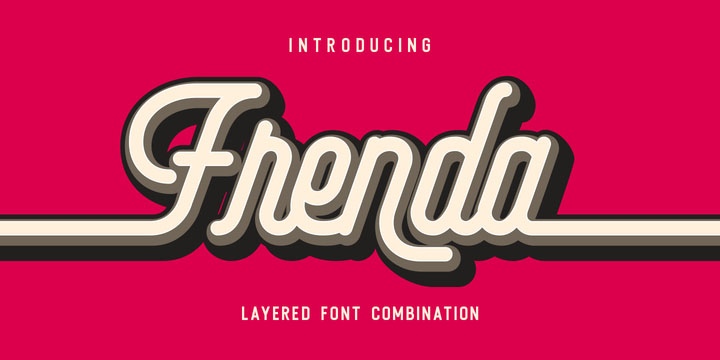
Frenda Font
Frenda Font is perfect for friendly brand identities, approachable corporate communications, community organization materials, children's educational content, welcoming healthcare branding, and warm hospitality marketing. This charming typeface excels in family-oriented businesses, neighborhood cafes, social service organizations, and any application where genuine warmth and human connection create trusting relationships with audiences.
What makes Frenda Font so exciting is its remarkable ability to convey genuine friendliness and approachability through carefully crafted letterforms that feel naturally inviting. The font features soft curves, open counters, and welcoming proportions that create an immediate sense of comfort and accessibility. Its warm personality makes complex information feel approachable while maintaining the professionalism necessary for serious communications.
Frenda Font comes in a welcoming family including Light, Regular, Medium, Bold, and Heavy weights. Each style features complete uppercase and lowercase character sets, friendly symbols, approachable numerals, and warm punctuation marks. The font family also includes rounded alternates, connecting ligatures, and inclusive character variations that provide designers with comprehensive tools for creating truly accessible communications.
This delightful typeface transforms business communications into genuine expressions of care and community connection. Frenda Font Free Download empowers organizations and designers to create materials that build trust and foster positive relationships through typography that genuinely cares about human connection. Whether you're developing brands for community services, creating educational materials, or designing communications for people-centered organizations, this font delivers authentic warmth with professional reliability.
The font's friendly character makes it particularly effective for healthcare providers, educational institutions, community organizations, and family-oriented businesses. Its exceptional readability ensures that Frenda Font communicates clearly across all applications while maintaining its distinctive welcoming personality. The font's ability to create immediate trust and emotional connection makes it an invaluable asset for any project requiring typography that bridges professional competence with genuine human warmth and community spirit.